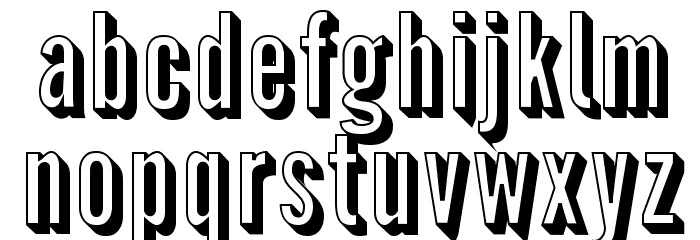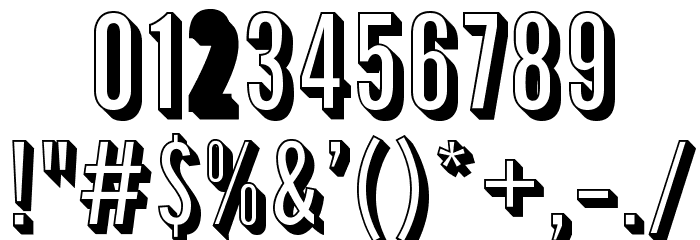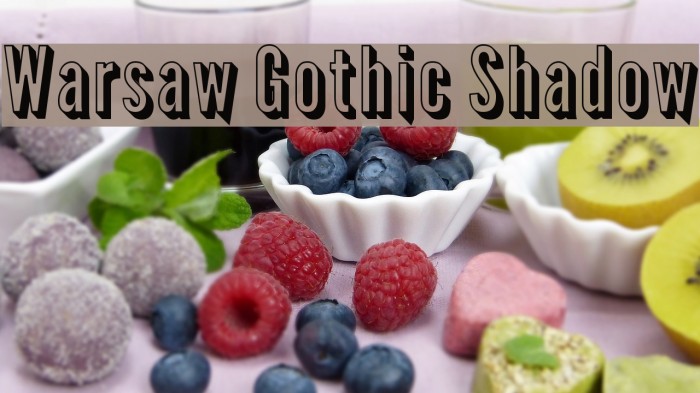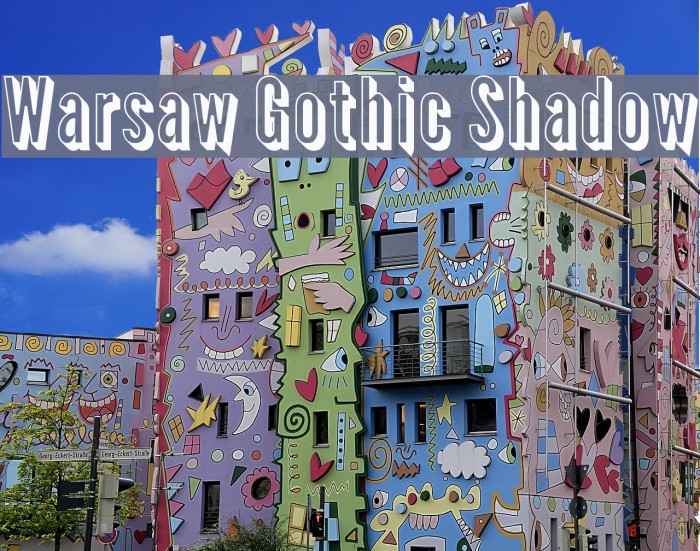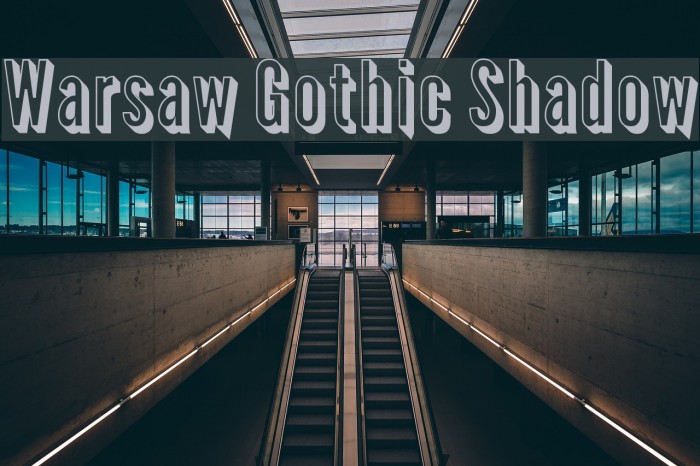
Warsaw Gothic Shadow Font
This font features a bold, shadowed style with a strong presence. The uppercase and lowercase letters are designed with a three-dimensional effect, giving them a striking appearance. The numerals and special characters maintain this shadowed look, ensuring consistency across all glyphs. The font's design is reminiscent of vintage signage, with a modern twist that makes it suitable for contemporary projects. Its boldness and shadow effect make it ideal for creating eye-catching headlines or logos that demand attention.
A bold, shadowed font with a vintage yet modern appeal.
- Proposed Projects: Ideal for posters, logos, headlines, and any design requiring a strong visual impact.
- Category: Decorative/Display
- Contrast: High
- Overall Style: Vintage, Modern